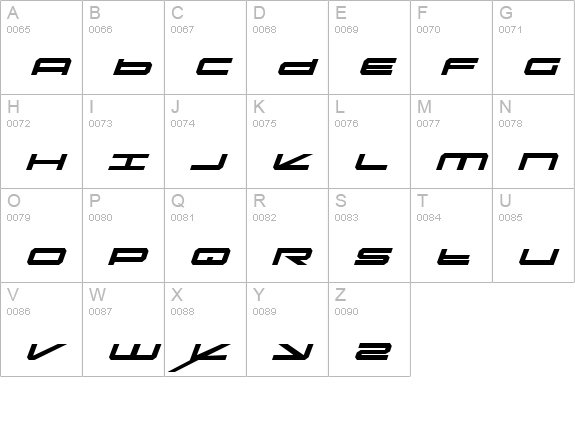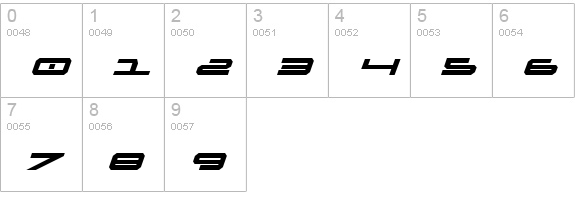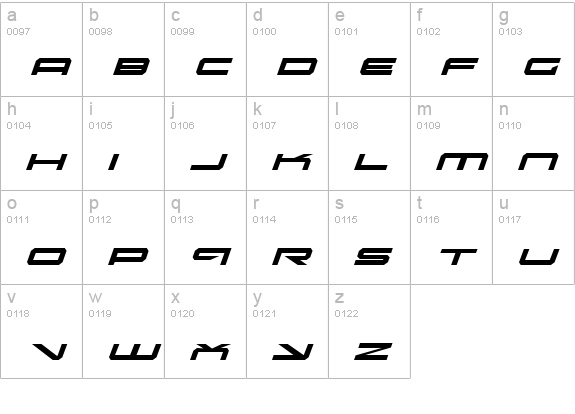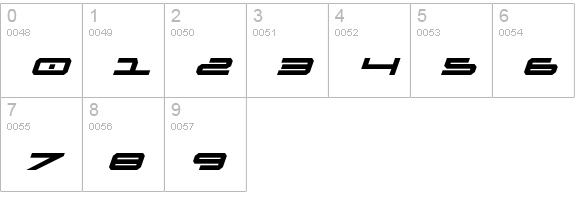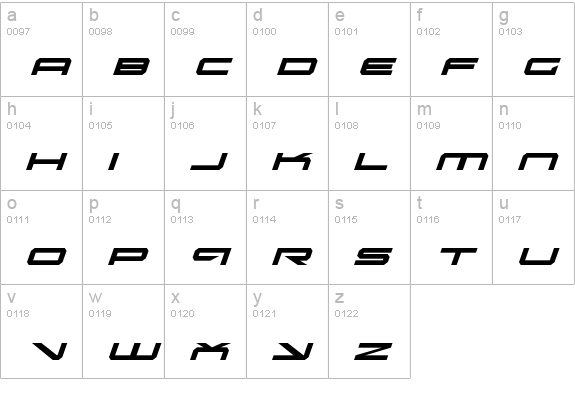
Oramac Italic is a distinctive, italic variant in the Oramac typeface family \xE2\x80\x94 well suited to design and typography projects.
Oramac Italic font is a visually appealing typeface that exudes elegance and sophistication. With its sleek and modern design, this font is perfect for adding a touch of style to any project. The italicized letters flow gracefully, creating a sense of movement and dynamism on the page. What makes Oramac Italic font even more attractive is the fact that it is available for free download at FontsMarket.com. This means that you can easily access this stunning font without any cost, making it a fantastic choice for designers and creatives looking to enhance their work without breaking the bank. Whether you're working on a branding project, a website design, or any other creative endeavor, Oramac Italic font is sure to make a statement. Its versatility and aesthetic appeal make it a valuable addition to any designer's toolkit. Download Oramac Italic font today and elevate your designs with this beautiful and freely available typeface.